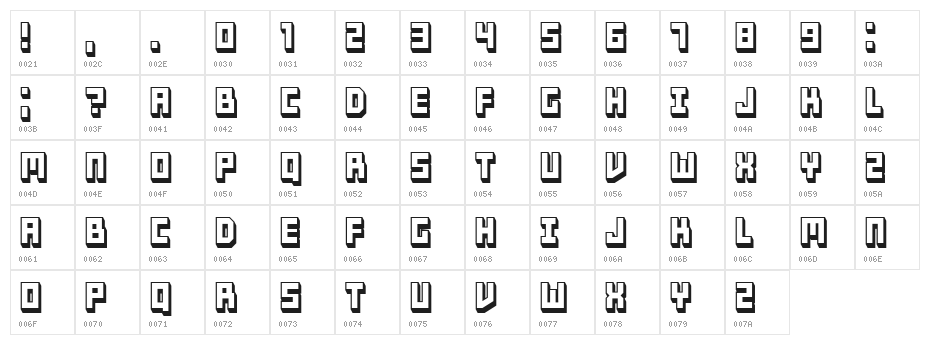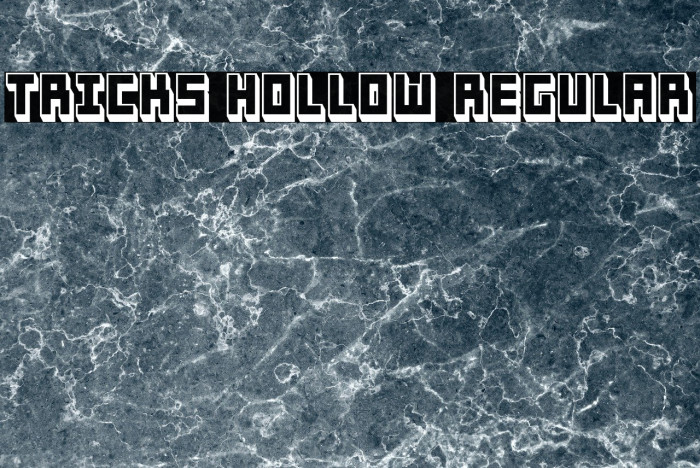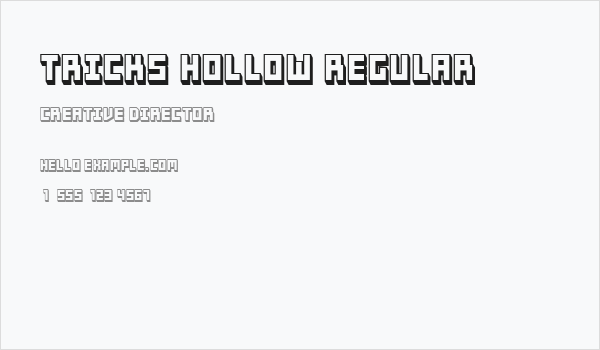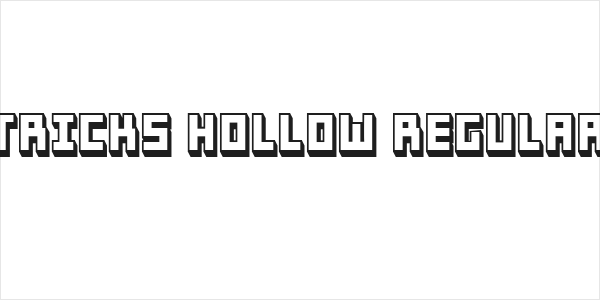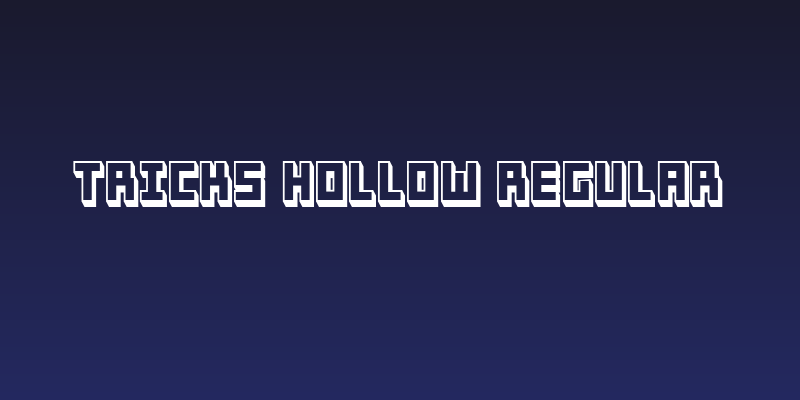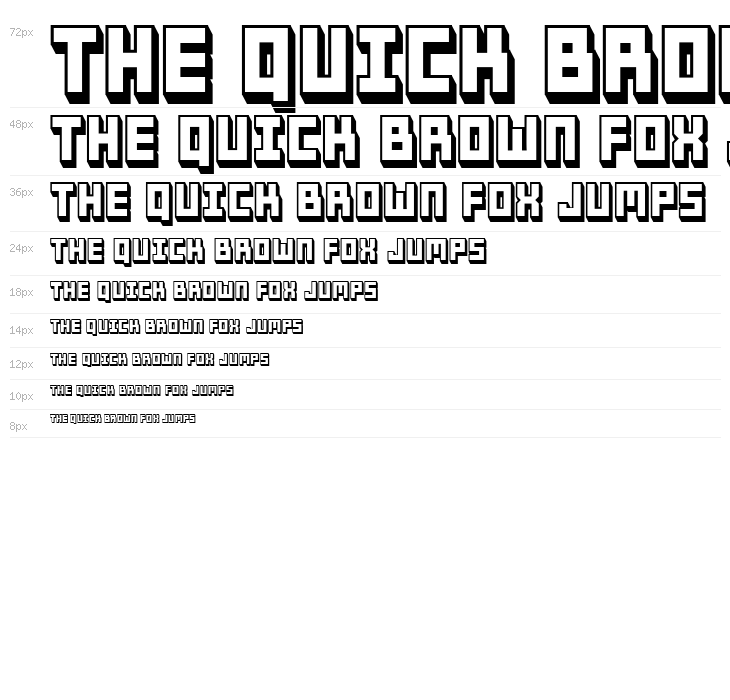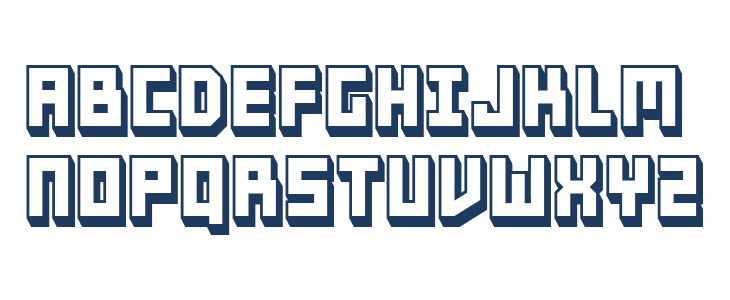
Tricks Hollow Regular Font
Tricks Hollow Regular Description
This font features a bold, hollow design with a three-dimensional effect, giving it a striking and modern appearance. The characters are uppercase and have a blocky, geometric style with sharp angles and clean lines. The hollow centers add a unique depth, making the letters stand out prominently. This font is ideal for creating eye-catching headlines or titles that demand attention. Its playful yet structured form makes it suitable for creative projects that require a touch of modernity and flair.